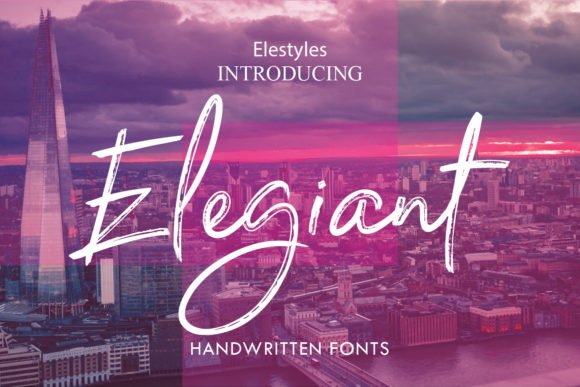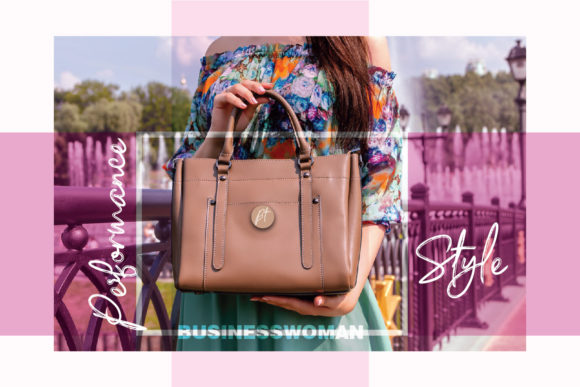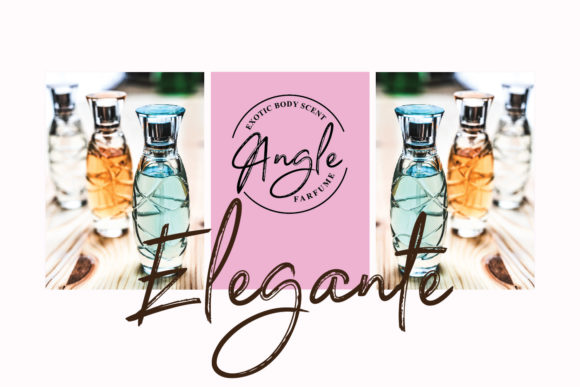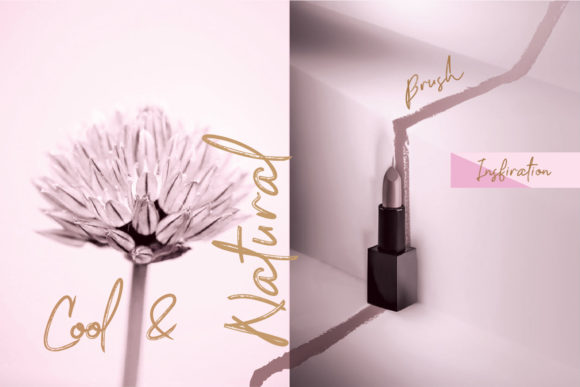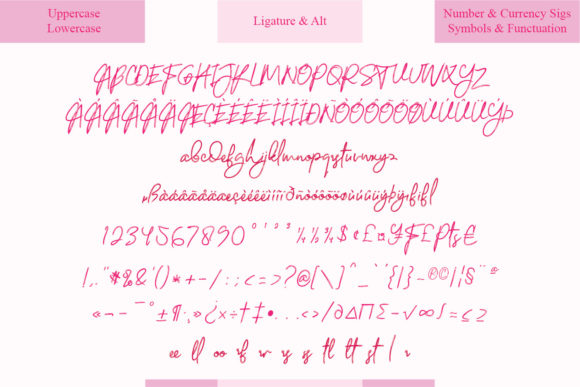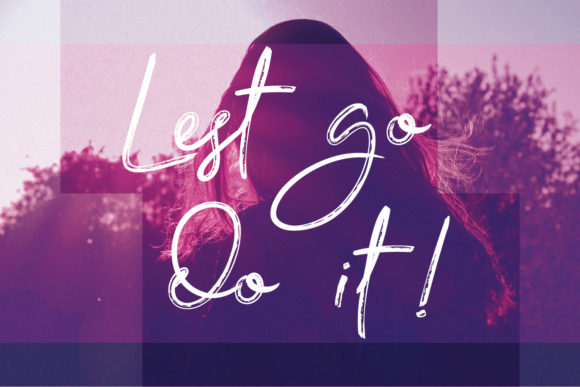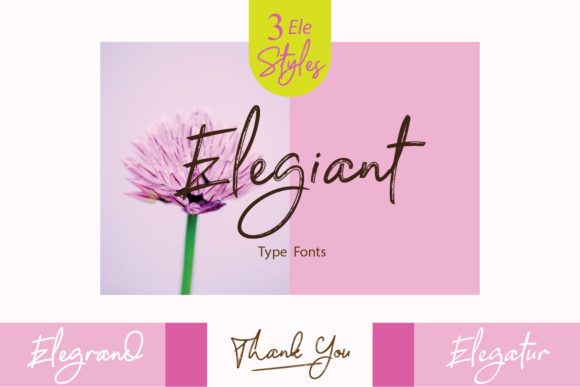
As creatives, we’ve all had those moments when we stumble upon a font that makes our hearts skip a beat. Maybe it’s the perfect mix of elegance and playfulness, or the way it adds a touch of personality to our work. For me, that moment came when I discovered the Elegiant Font. This beautiful script font is full of authentic charm and has been a game-changer for my design projects.
The Elegiant Font is a versatile tool that can add a personal touch to a wide range of crafting projects, from headlines and greeting cards to personal branding. Its unique character and style make it a valuable asset for designers looking to create something truly special. Whether you’re working on a personal project or a client’s brand, the Elegiant Font is sure to bring a touch of elegance and sophistication to your designs.
Elegiant Font Key Features
- Unique Characteristics: The font features elegant, flowing lines and subtle curves, making it ideal for luxury, high-end, and sophisticated branding and design projects.
Elegiant Font Review
I recently had the chance to work with the Elegiant Font, and overall, I was quite impressed. ✨ The font’s sleek, modern design is perfect for any project that requires a touch of sophistication.
- Legibility**: The font is highly legible, making it ideal for long blocks of text.
- Consistency**: The font’s design is consistent throughout, ensuring a cohesive look in your design.
- Customization**: Elegiant Font offers a wide range of customization options, allowing you to fine-tune the font to your needs.
- Weight Limitations**: The font only comes in a limited number of weights, which may limit its versatility.
- Lack of Italic**: The font does not include an italic version, which may be a drawback for some designers.
Overall, I think the Elegiant Font is a solid choice for designers looking for a modern, elegant font. While it has some limitations, its strengths far outweigh its weaknesses. I would definitely consider using it in future projects.
For optimal results, use Elegiant Font in combination with other elegant fonts and a minimalist design approach.
To achieve a professional look, pair Elegiant Font with a contrasting background and subtle design elements.
For a polished look, use Elegiant Font in combination with other elegant fonts and a clean design approach.
Elegiant Font is ideal for:
Luxury brand logos and packaging
High-end business cards and presentations
Formal event signage and displays